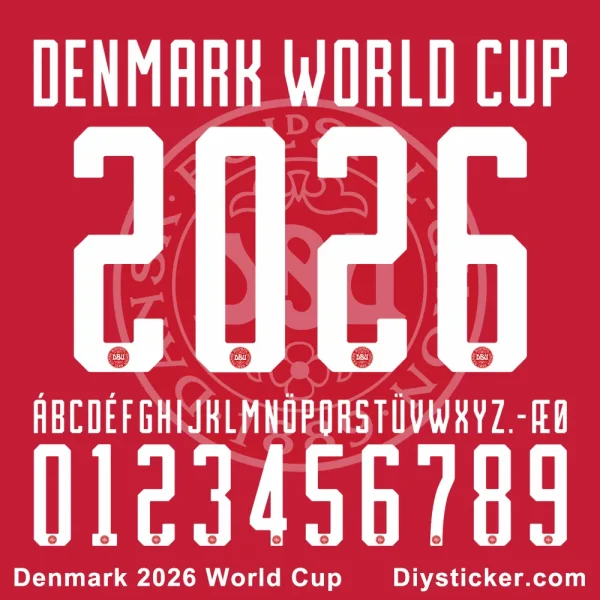
Denmark 2026 World Cup Font Downloads
Celebrate the Danish spirit on the world stage with our meticulously crafted Denmark 2026 World Cup Font. Whether you are preparing for the tournament in North America or creating bespoke fan merchandise, this font provides the clean, Nordic aesthetic that Hummel and the DBU are famous for.